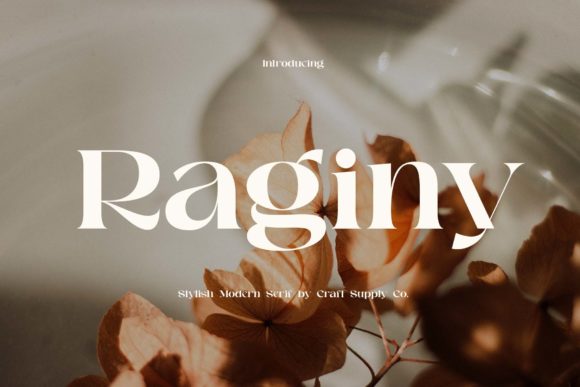
Unleash the spellbinding charm of Raginy, a captivating serif font that will cast a magical aura over your designs!
Imagine your Halloween posters adorned with the enchanting curves and dramatic contrasts of Raginy. Its bold personality demands attention, making your messages hauntingly memorable. But Raginy's versatility extends far beyond the realm of spooky season.
With its graceful strokes and timeless elegance, Raginy transforms any design into a captivating masterpiece. Its high-contrast design adds an air of sophistication to greeting cards, invites, and brand identities, leaving a lasting impression on all who behold it.
Let Raginy be the enchanting touch that brings your designs to life. Its endless possibilities will ignite your imagination and captivate your audience, leaving them spellbound by the allure of your creations.